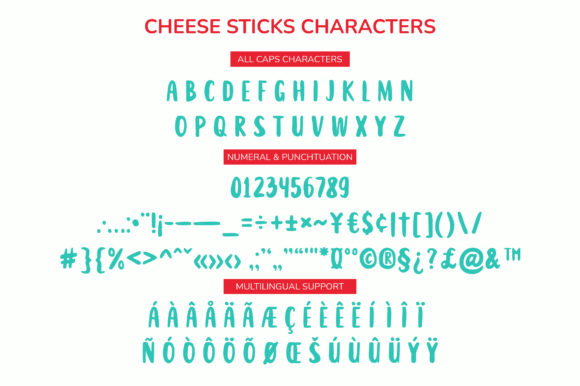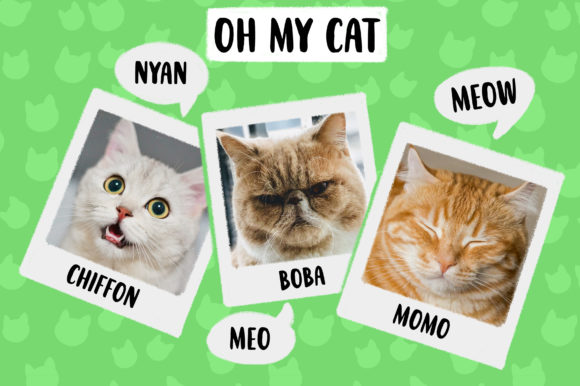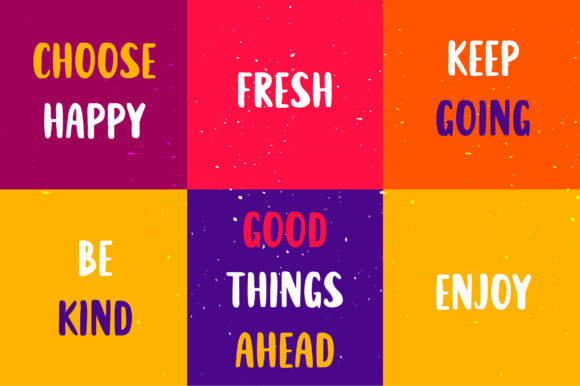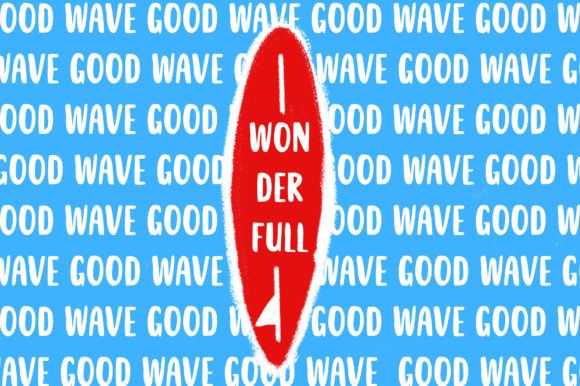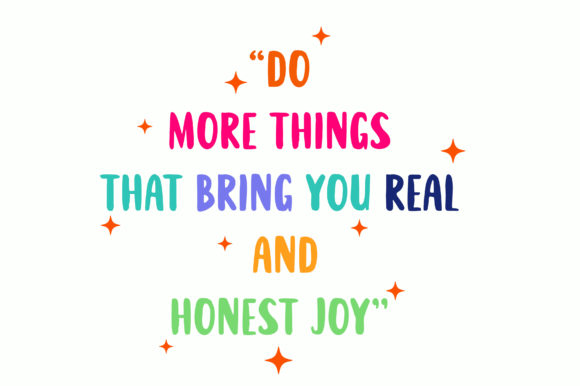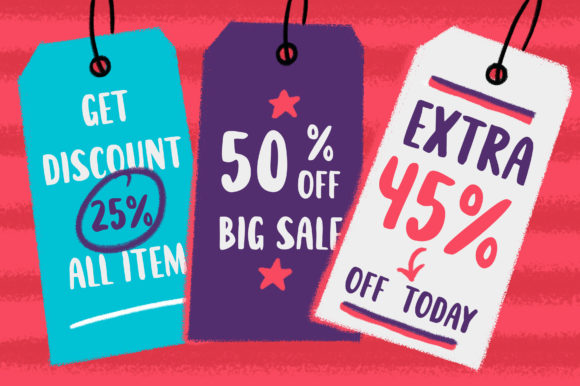
Introduction to Cheese Sticks Font
Cheese Sticks is a cute and playful display font perfect for a wide range of designs.
If you want to enhance your creativity and make your ideas stand out from the crowd, add this font to any of your projects and be amazed by the generated outcome .
Key Features of Cheese Sticks Font